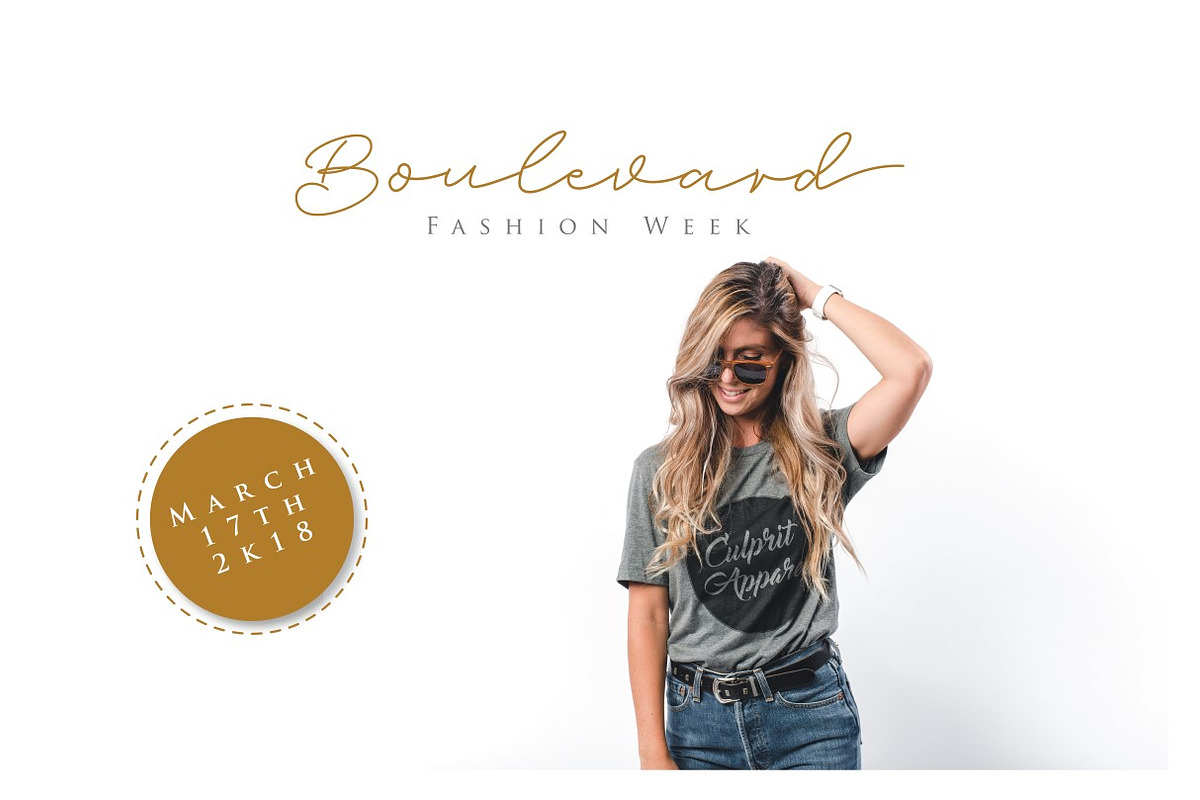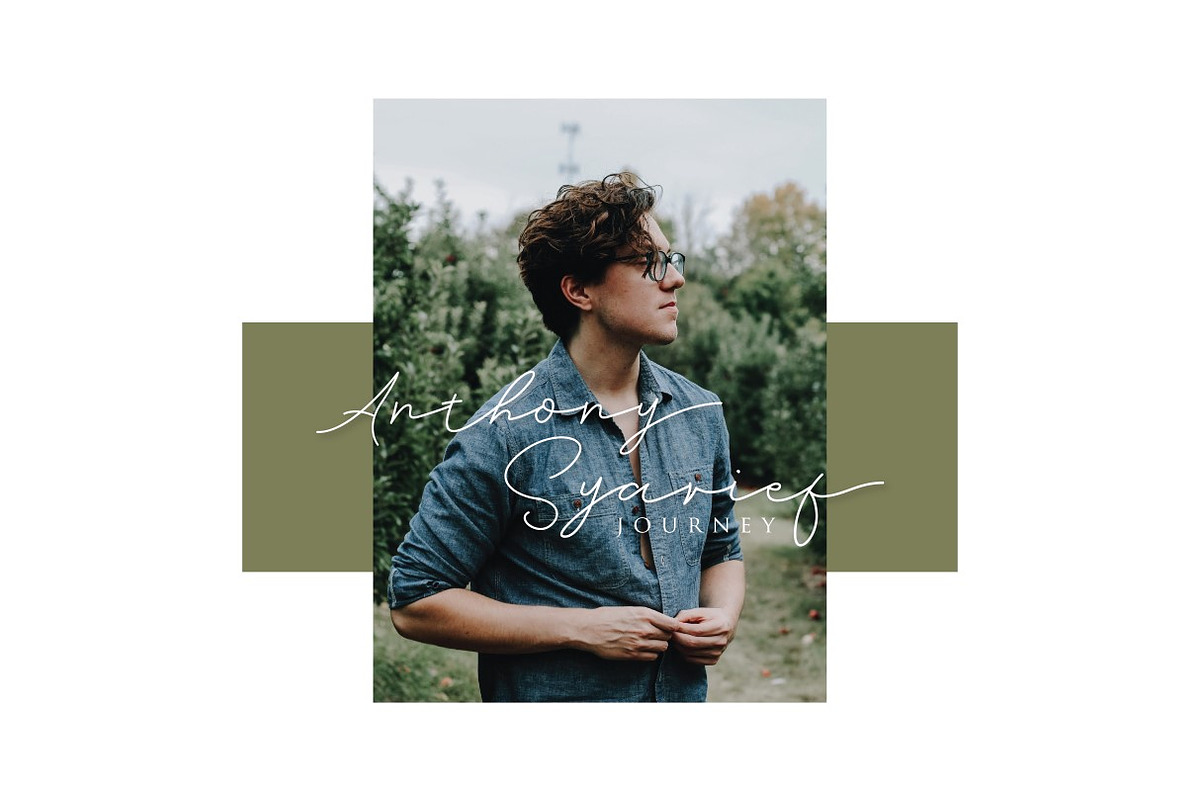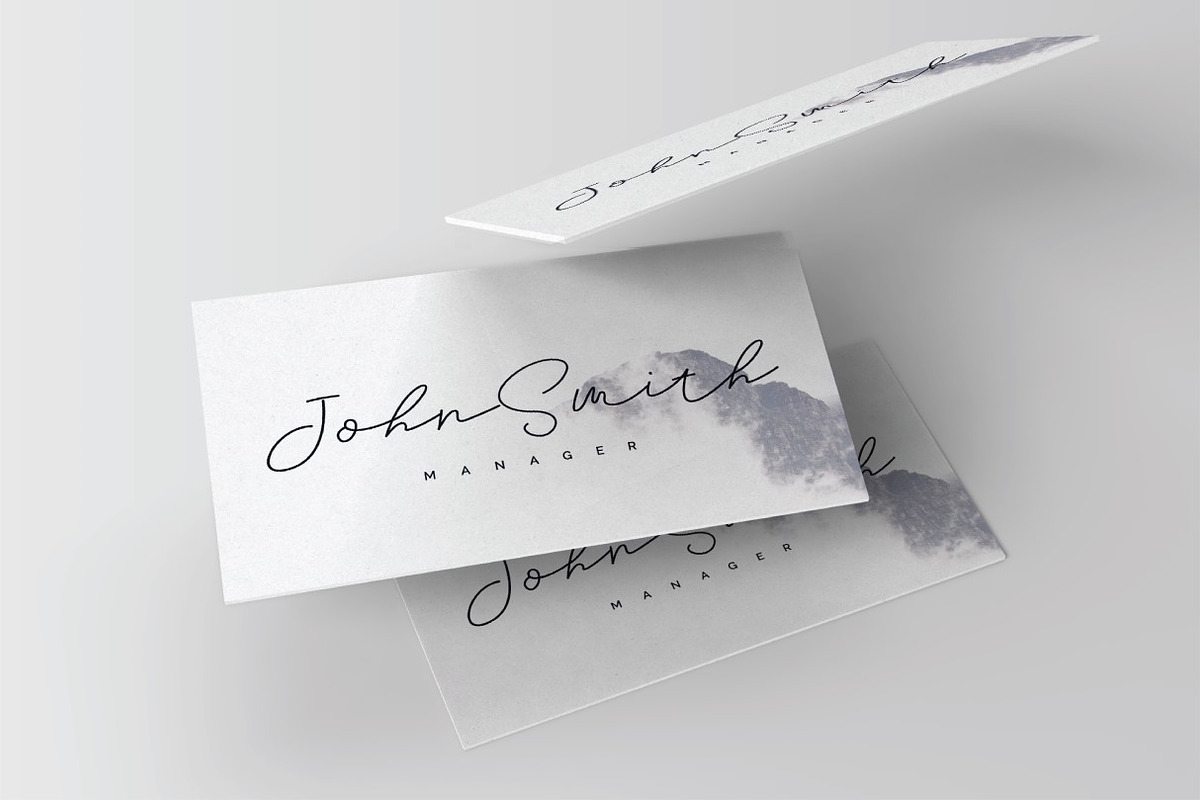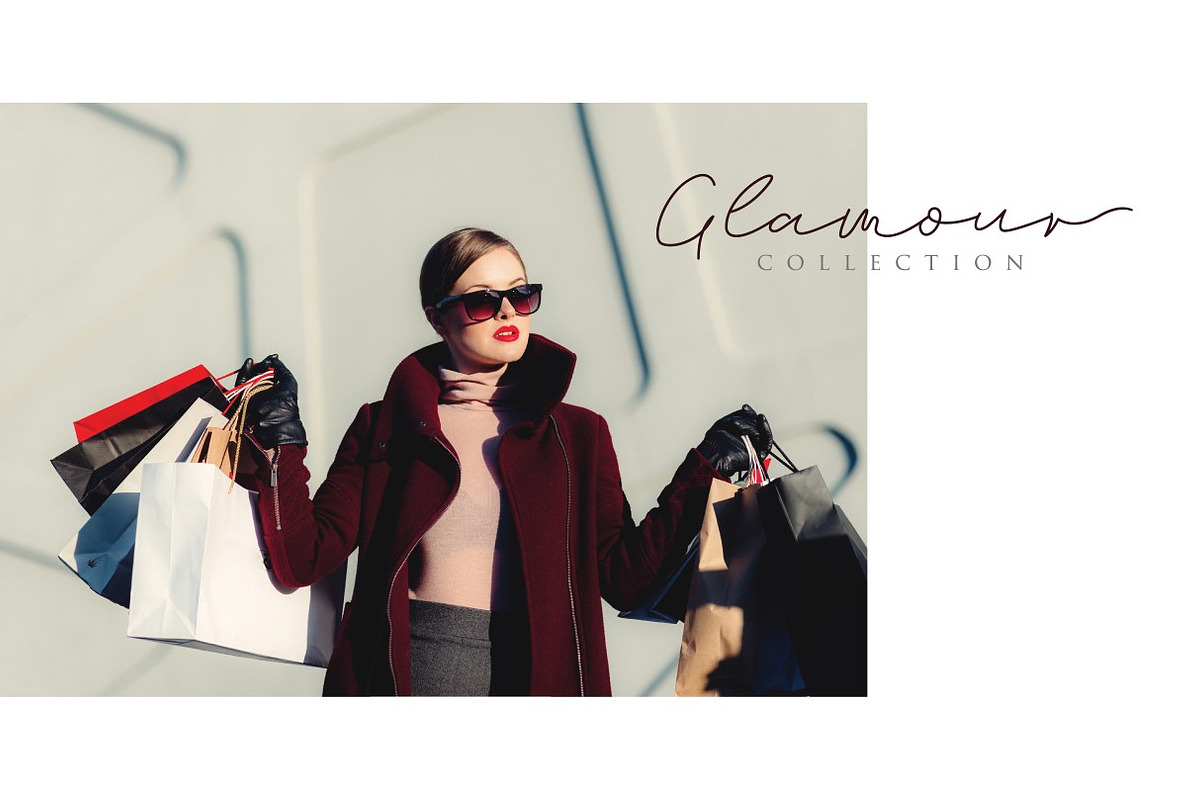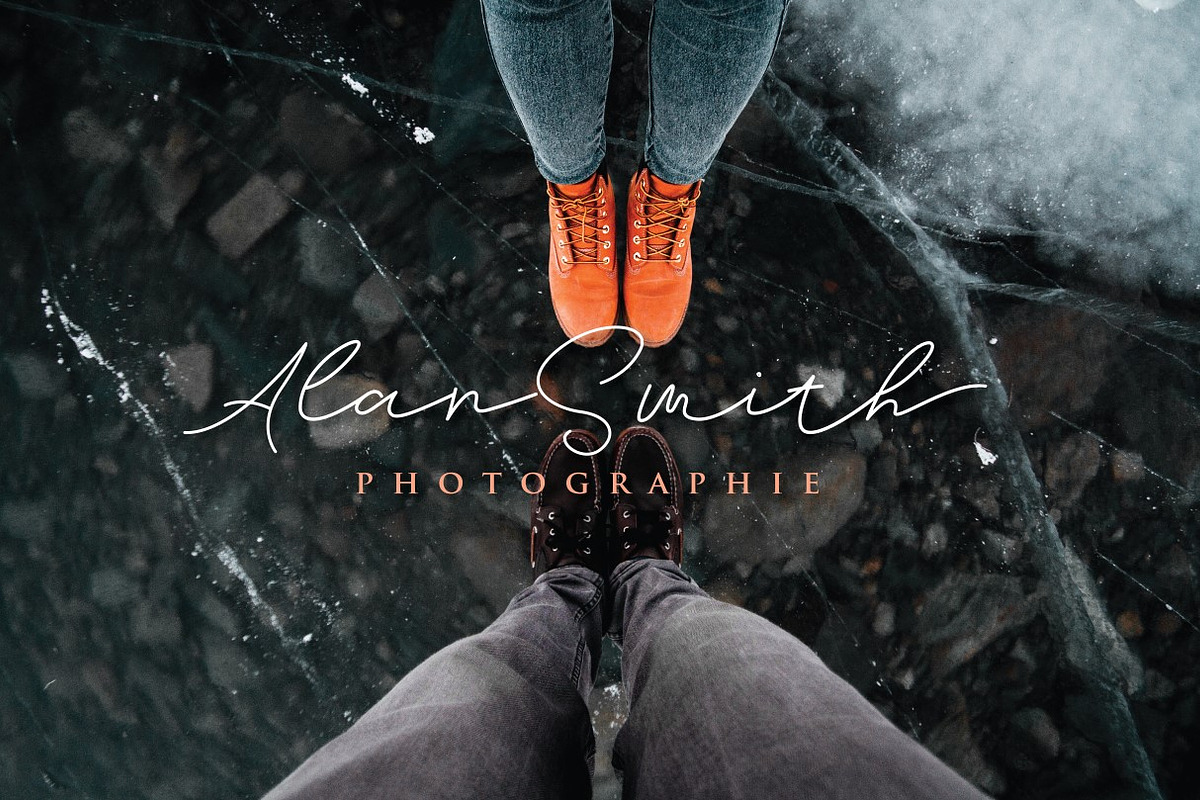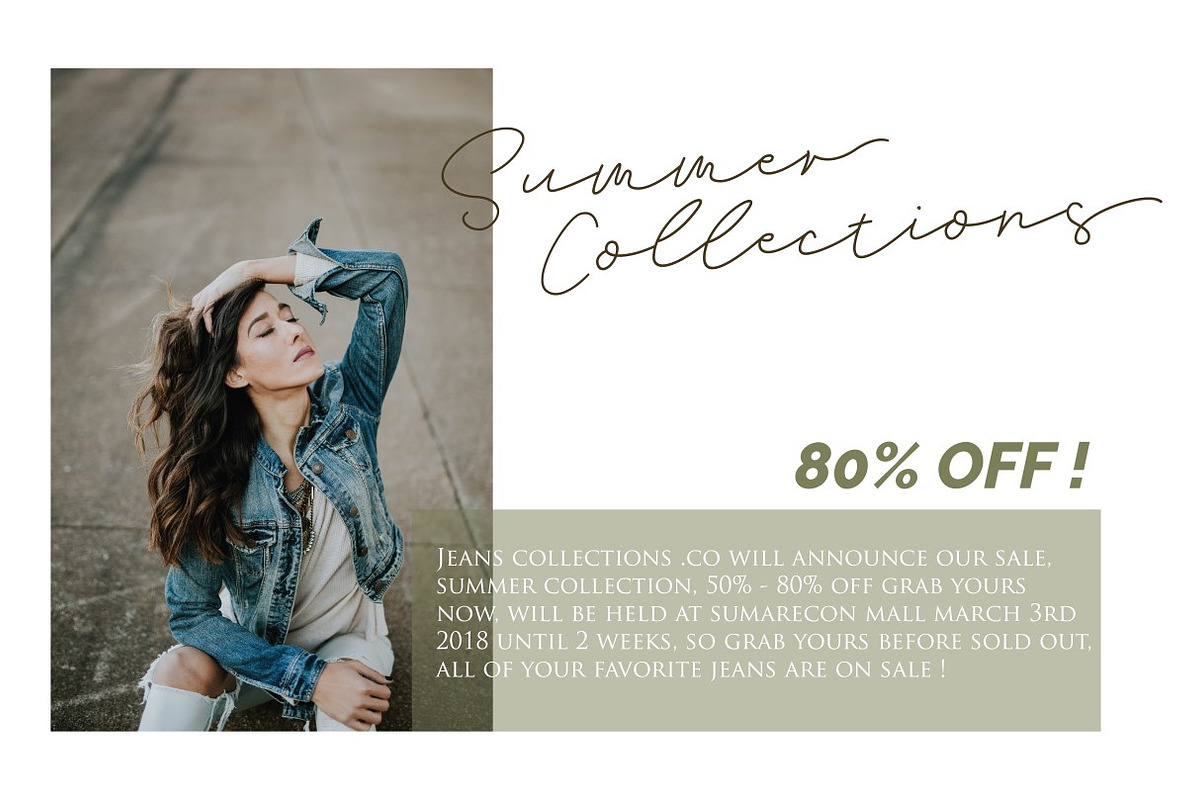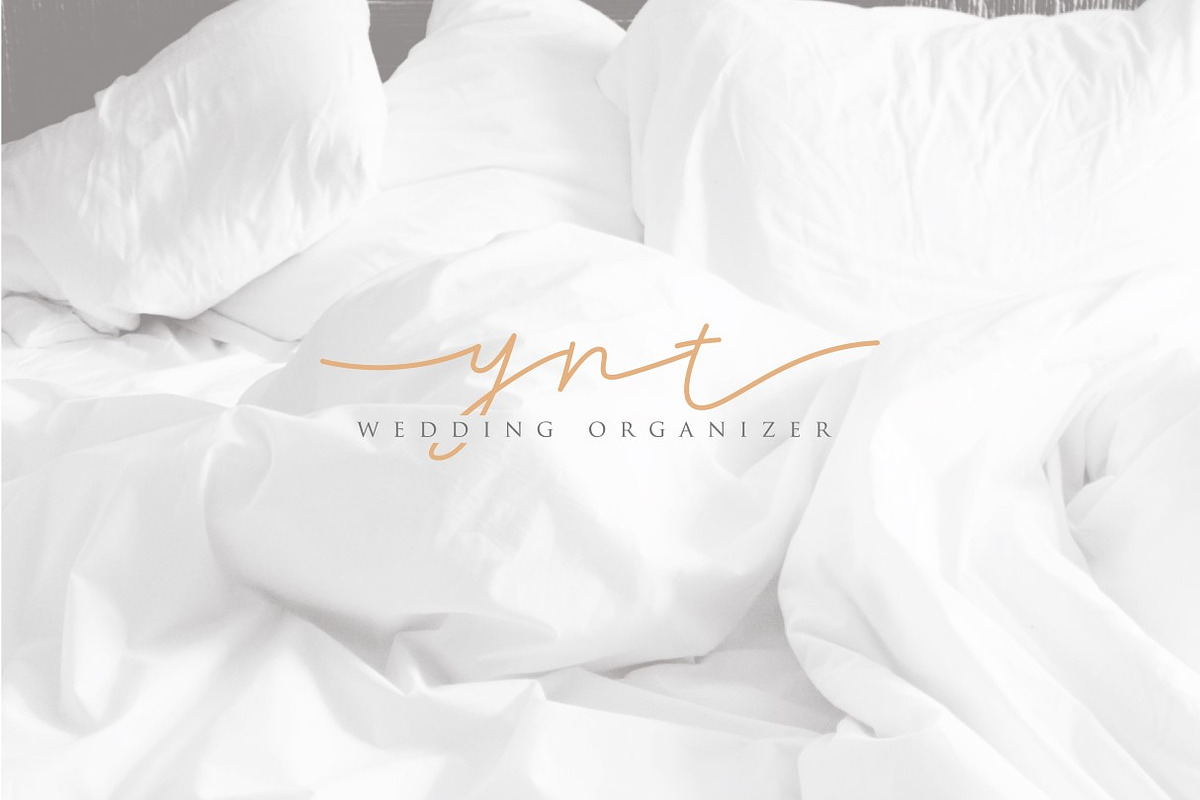
Brian Strait - Signature Font
We keep this font looks elegant, classy, readable, stylish, catchy and easy to use. this font is the great choice for watermark on photography, fashion catalogue, modern lookbook design, signature logo design, quotes, album cover, business card, etc.
Brian Strait is here to make your work look more amazing..
lowercase initial form and final form
PUA Encoded -Multilingual support AÀÁÂÃÄÅCÇDÐEÈÉÊËIÌÍÎÏNÑOØÒÓÔÕÖUÙÜÚÛWYÝŸỲŸÆŒßÞþ
The perfect font choice for watermarks, signatures, photography, logos, business cards, quotes, album covers.
- Brian Strait is a simple and classy font, comes with opentype features such as stylistic alternates,initial and final form, and ligatures.
- OpenType Features
- stylistic alternates
- lowercase initial form and final form
- ligatures
- PUA Encoded -Multilingual support AÀÁÂÃÄÅCÇDÐEÈÉÊËIÌÍÎÏNÑOØÒÓÔÕÖUÙÜÚÛWYÝŸỲŸÆŒßÞþ